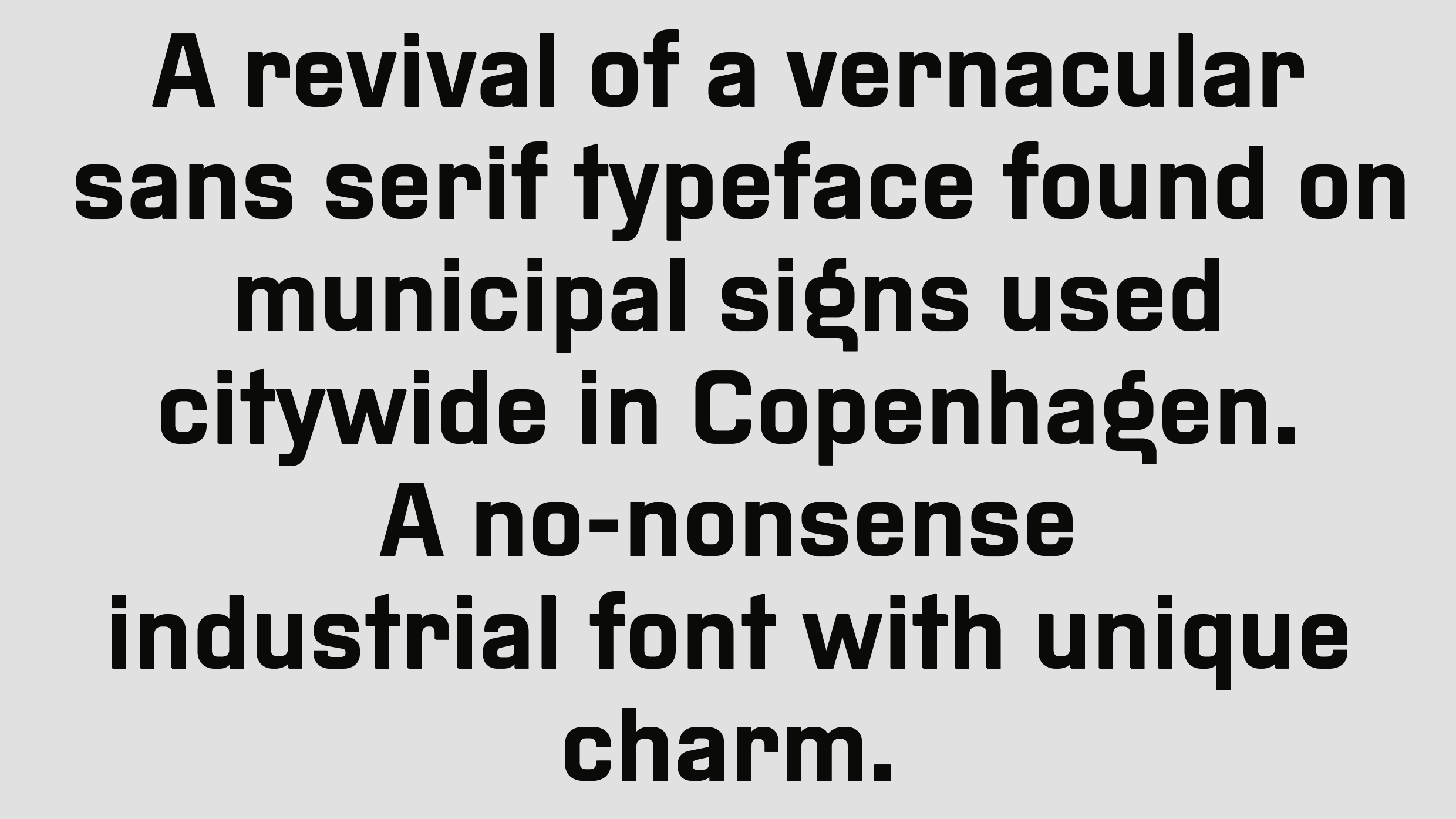
A revival of a vernacular sans serif typeface found on municipal signs used citywide in Copenhagen. Copenhagen is a no-nonsense industrial font with a unique charm.
| Font name: | Copenhagen |
| Styles: | Regular Medium Bold |
| Manufacturer: | A2-TYPE |
| Designer: | Henrik Kubel |